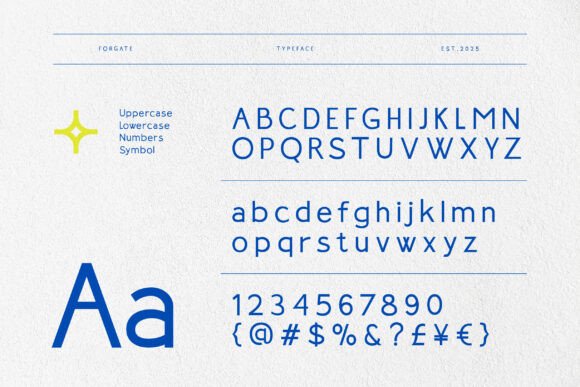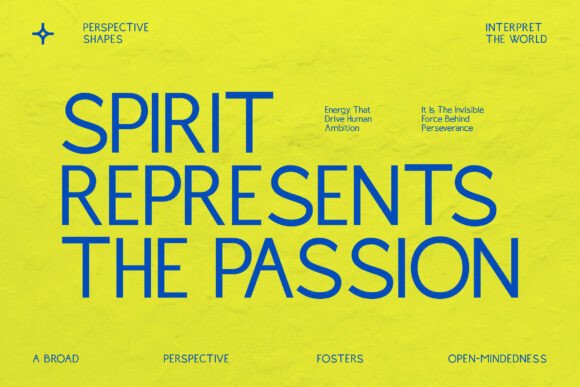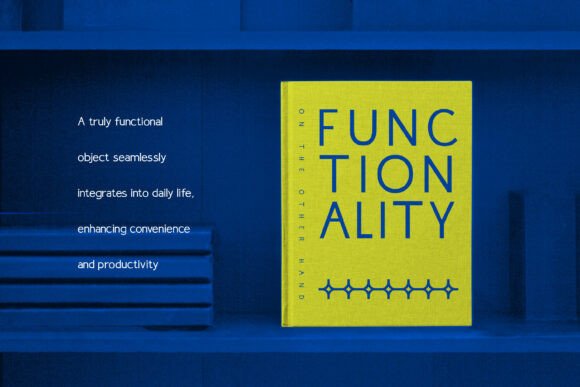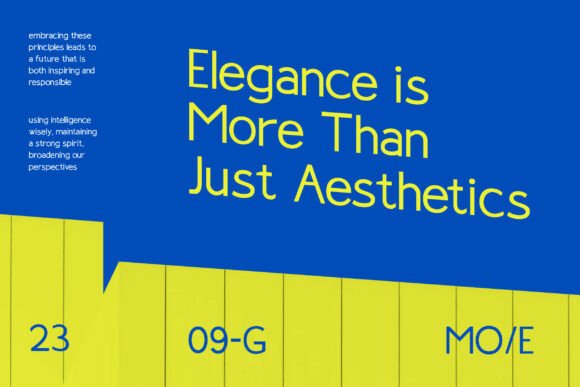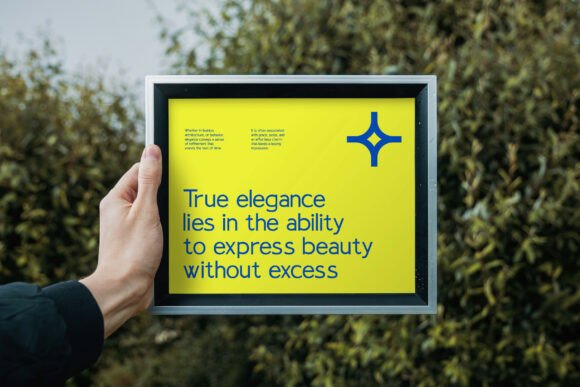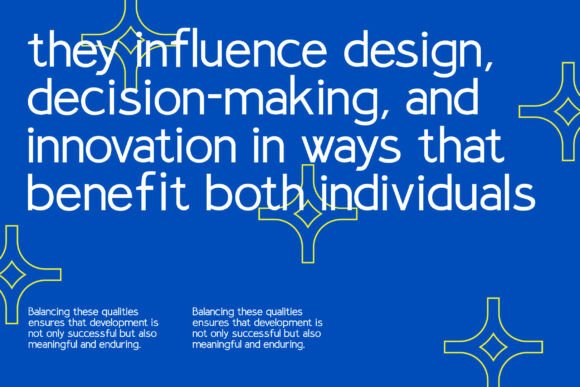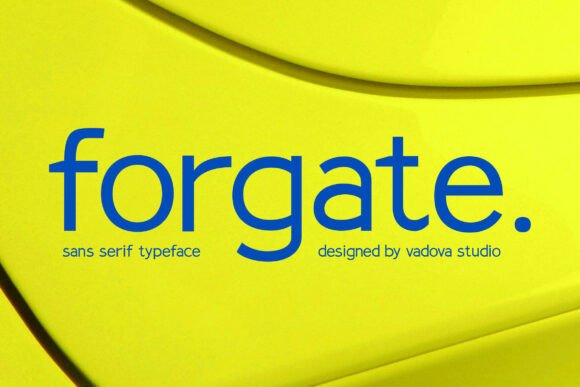
Introducing Forgate Font: Elevate Your Designs with Sophistication and Elegance
In the world of typography, a font can make or break the visual identity of a brand. For designers and crafters seeking a typeface that exudes modernity, professionalism, and elegance, Forgate Font is an exceptional choice. This sleek and sophisticated sans serif font is specifically designed for contemporary branding and elegant visual identities, making it perfect for a wide range of applications.
The Forgate Advantage: Clean Lines and Balanced Proportions
Forgate Font boasts clean lines, balanced proportions, and a contemporary aesthetic that sets it apart from other typefaces. Its refined letterforms are meticulously crafted to convey a sense of professionalism and elegance, making it an ideal choice for luxury brands, high-end fashion labels, and architectural portfolios.
One of the key features that make Forgate stand out is its versatility. Whether you’re designing a corporate logo, creating an editorial layout, or crafting a minimalist presentation, this font adapts seamlessly to various design contexts. Its neutral yet distinctive style allows it to complement a wide range of visual identities, from modern and bold to subtle and sophisticated.
Perfect for Modern Branding and Visual Identities
Forgate Font is specifically designed to meet the needs of modern brands seeking a strong visual presence. Its sleek and sophisticated design makes it perfect for:
• Corporate Designs: Create a lasting impression with Forgate’s professional and elegant aesthetic, ideal for logos, business cards, and letterheads.
• Editorial Layouts: Enhance your publications with Forgate’s clean lines and balanced proportions, perfect for magazines, newspapers, and online articles.
• High-End Fashion Branding: Elevate your fashion brand with Forgate’s sophisticated and luxurious feel, ideal for logos, packaging, and advertising campaigns.
• Minimalist Presentations: Make a strong impact with Forgate’s simple yet distinctive style, perfect for presentations, reports, and digital slides.
Why Choose Forgate Font?
With Forgate Font, you can:
• Convey Professionalism and Elegance: Forgate’s refined letterforms and sophisticated design make it perfect for luxury brands and high-end applications.
• Enhance Readability: Forgate’s clean lines and balanced proportions ensure excellent readability, even at small font sizes.
• Stand Out in a Crowded Market: Forgate’s unique and distinctive style helps you differentiate your brand and create a lasting impression.
Tips for Using Forgate Font Effectively
To get the most out of Forgate Font, consider the following tips:
• Pair with Contrasting Fonts: Combine Forgate with contrasting fonts to create visual interest and hierarchy.
• Experiment with Font Sizes: Use Forgate’s versatility to create a clear visual hierarchy, from headings to body text.
• Pay Attention to Kerning: Adjust kerning to ensure optimal spacing and readability.
Forgate Font is a powerful tool for designers and crafters seeking to elevate their designs with sophistication and elegance. Its sleek and sophisticated sans serif design, clean lines, and balanced proportions make it perfect for modern branding, elegant visual identities, and a wide range of applications. With Forgate, you can create a strong visual presence, convey professionalism and elegance, and stand out in a crowded market.
Whether you’re a seasoned designer or a crafty entrepreneur, Forgate Font is an excellent choice for anyone seeking to create stunning visual identities that leave a lasting impression.